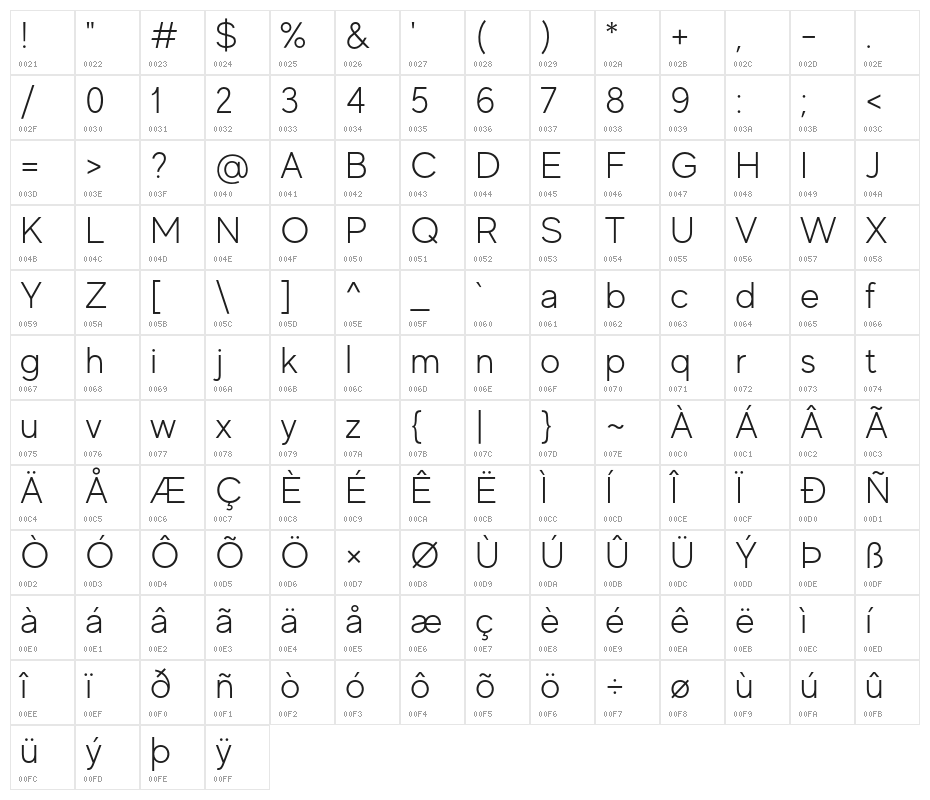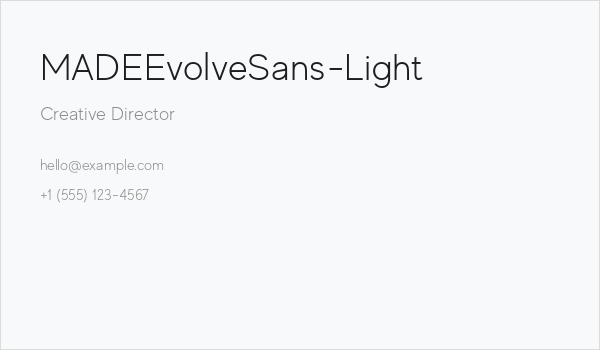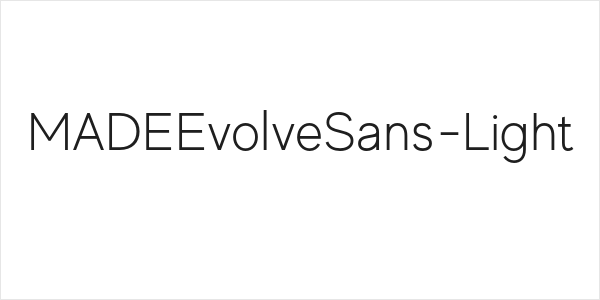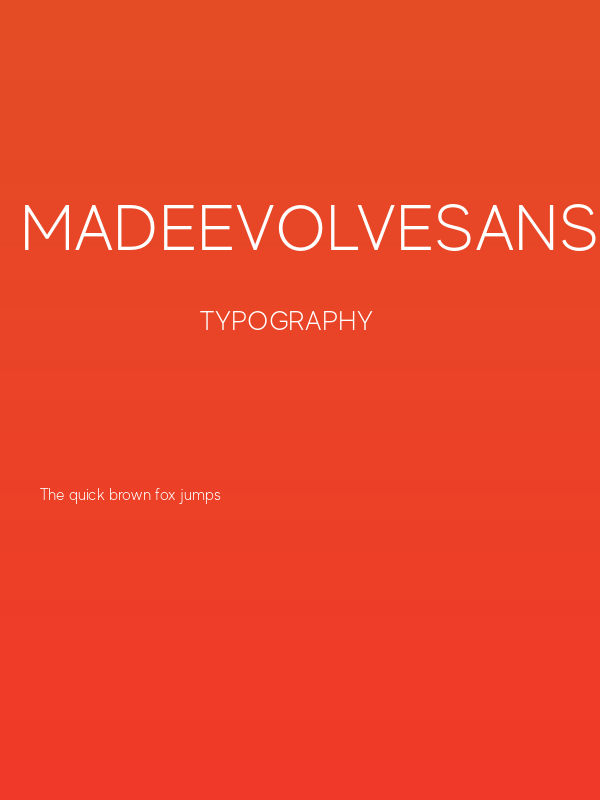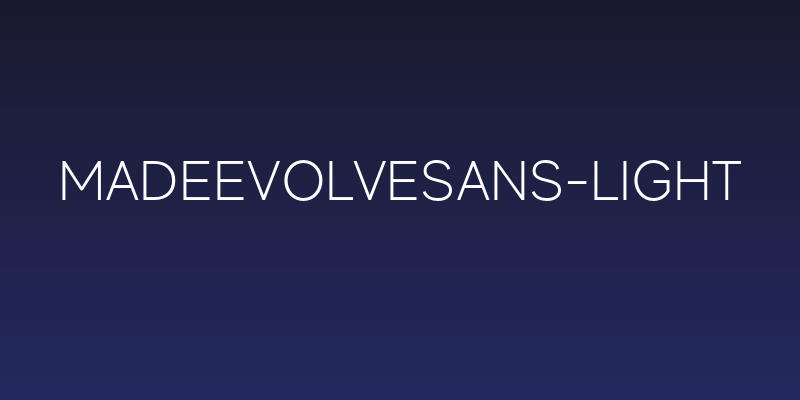
MADEEvolveSans-Light Font
MADEEvolveSans-Light Description
This font features a clean and modern sans-serif design, characterized by its light weight and minimalistic style. The characters are well-proportioned with a uniform stroke width, contributing to its sleek and contemporary appearance. The uppercase and lowercase letters maintain a consistent geometric form, enhancing readability and versatility. The numerals are straightforward and align well with the overall aesthetic, while the special characters are clearly defined, adding to the font's functionality. Its simplicity and elegance make it suitable for a wide range of applications.
| Proposed Projects | Ideal for branding, web design, corporate materials, and editorial layouts. |